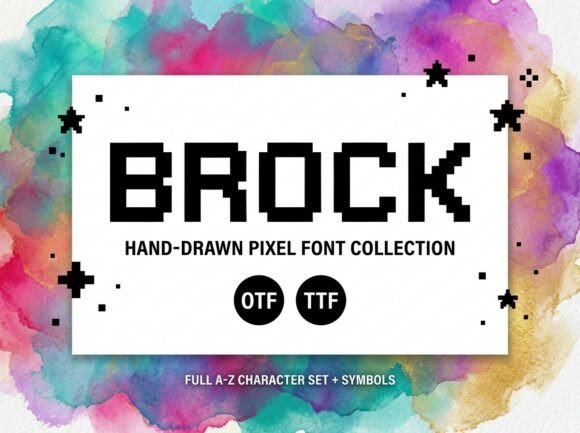
Level Up Your Digital Aesthetic with Brock Font
I’ll never forget the struggle I faced while working on a retro-themed game project. My client wanted a font that would transport players back to the 8-bit arcade era, but I was coming up empty-handed. That’s when I stumbled upon Brock, a hand-drawn pixel font that instantly captured the nostalgic essence of retro gaming. In this article, I’ll share my experience with Brock, its features, and how you can make the most of it in your designs.
What Makes Brock Special?
Brock is more than just a pixel font – it’s a gateway to the retro gaming world. Unlike rigid, machine-generated pixel fonts, Brock features subtle organic irregularities that give it a warm, indie-game feel. Its bold blocky weight and digital rhythm make it perfect for eSports stream overlays, retro-themed merchandise, independent game dev branding, and high-impact “cyber-pop” social media headers.
The Good ✨
- ✅ Unique, hand-drawn pixel design that stands out from the crowd
- ✅ Subtle organic irregularities for a warm, indie-game feel
- ✅ Bold blocky weight and digital rhythm for high-impact designs
- ✅ Perfect for retro-themed projects, eSports, and cyber-pop designs
The Not-So-Good 🤔
- ⚠️ Limited use in very small font sizes (less than 10px) due to pixel design
The Story Behind Brock Font
Brock was designed by a team of font enthusiasts who wanted to capture the essence of retro gaming. Inspired by classic arcade games and indie game culture, they created a font that’s both nostalgic and modern. With its unique blend of pixel design and organic irregularities, Brock has become a go-to font for designers and gamers alike.
Q: What is Brock font best used for?
A: Brock font is perfect for retro-themed projects, eSports, independent game dev branding, and high-impact “cyber-pop” social media headers.
Q: Is Brock font suitable for body text?
A: While Brock font can be used for body text, it’s primarily designed for headlines and titles. For optimal readability, use it in larger font sizes (above 18px).